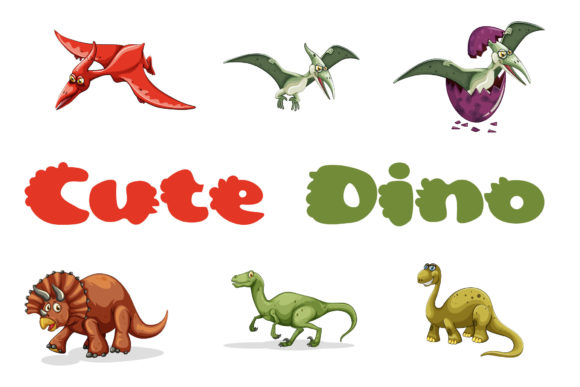
Unleash the magic of storytelling with Cute Dino Font! Embark on an enchanting journey with this whimsical display font, specially crafted to captivate the hearts of young imaginations. Let the friendly, plump letters dance and play across your designs, painting stories that come alive.
Bring joy and laughter to children's books, name tags, posters, greeting cards, and more with this playful and lighthearted font. Its bubbly and cheerful style is sure to ignite smiles and spark creativity. The thick, unapologetically delightful strokes demand attention, encouraging readers to embark on a visual adventure.
Designed by the talented Vladimir Carrer, Cute Dino isn't just a font—it's an experience. Each letter is a work of art, lovingly created to capture the essence of childhood dreams and imagination. It's a font that understands the beauty of simplicity, transforming ordinary words into extraordinary expressions of joy.
With its wide range of applications, Cute Dino promises endless opportunities for creativity. From classroom projects and holiday cards to T-shirt designs and social media graphics, it's the perfect companion for all things delightful and charming.
Welcome Cute Dino into your design toolbox today and witness the magic unfold. Let its whimsical spirit breathe life into your creations, making them unforgettable and cherished by all who encounter them. Let your imagination soar with Cute Dino, where every character is an invitation to an enchanting world of make-believe.